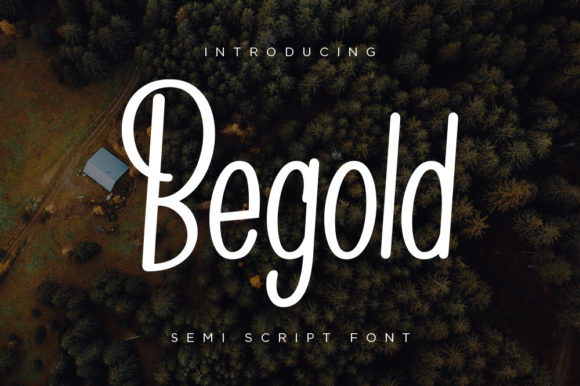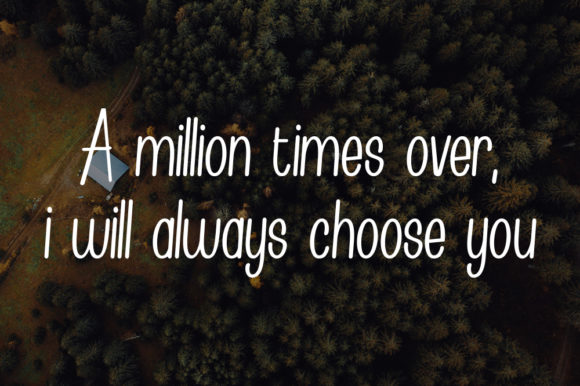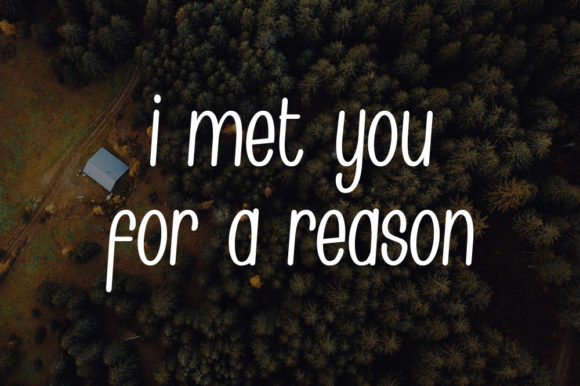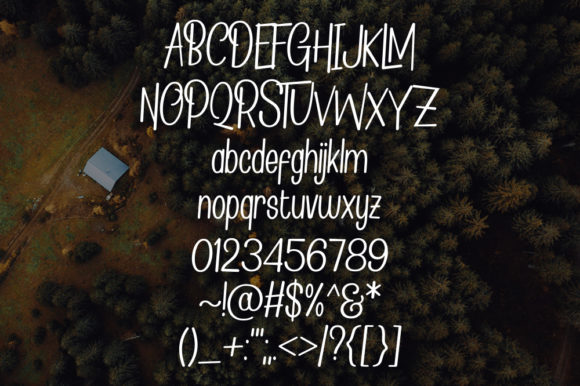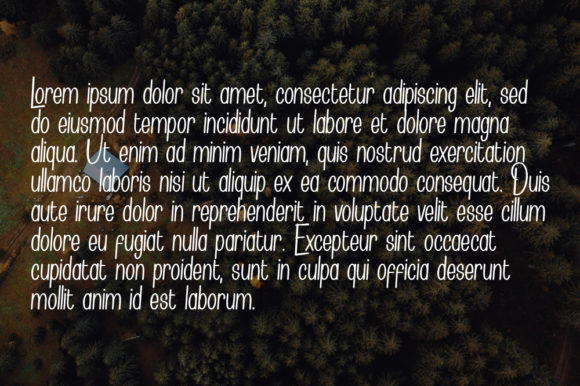
Begold Font
About Begold Font
Begold is a versatile script with a unique twist. Fall in love with its unique charm, and turn any design project into a masterpiece!